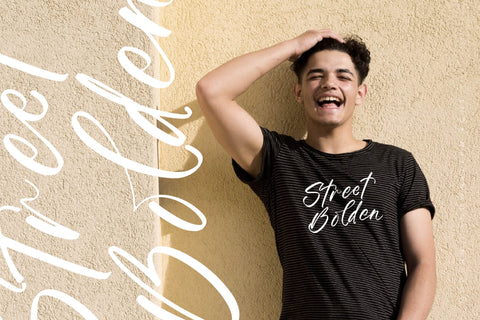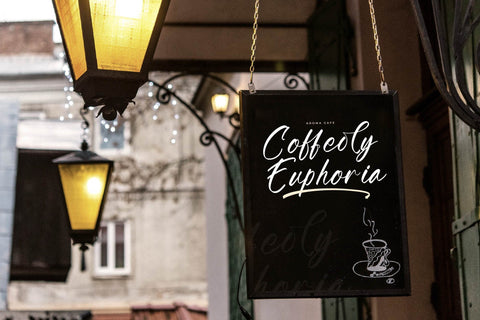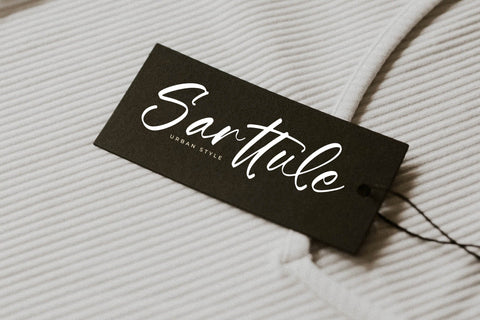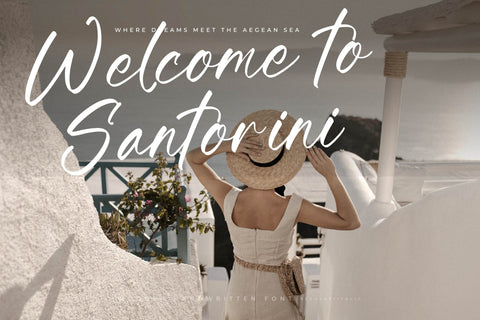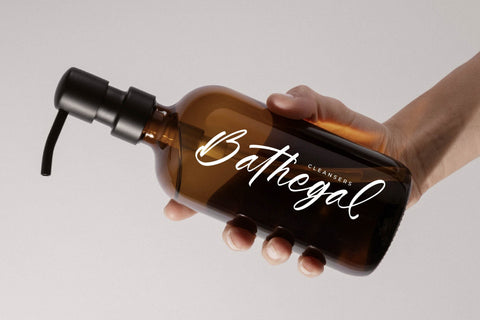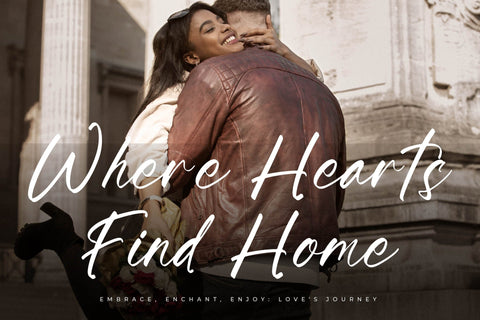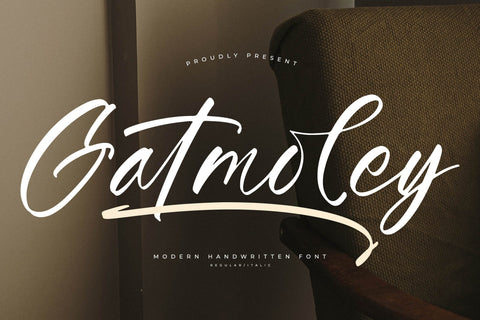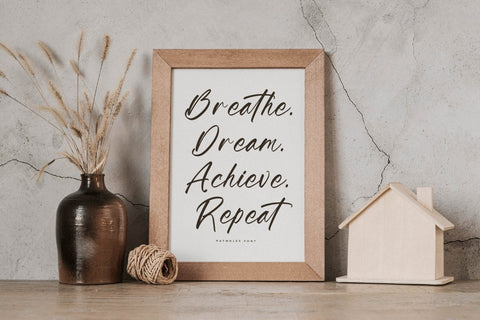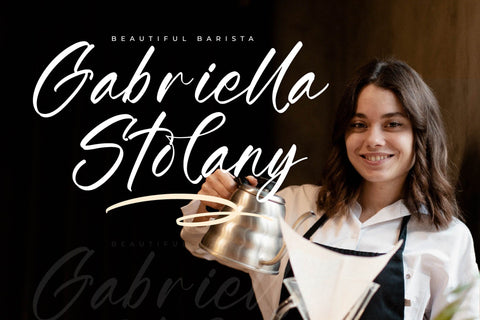
Gatmoley - Modern Handwritten Font
Gatmoley - Modern Handwritten Font , from Letterena, is a Luxury Script font, suitable for any projects such as: logos, branding projects, homeware designs, product packaging, mugs, quotes, posters, shopping bags, t-shirts, book covers, name card, invitation cards, greeting cards, label, photography, watermark, special events, and all your other luxury and beautiful projects that need a Luxury serif taste.